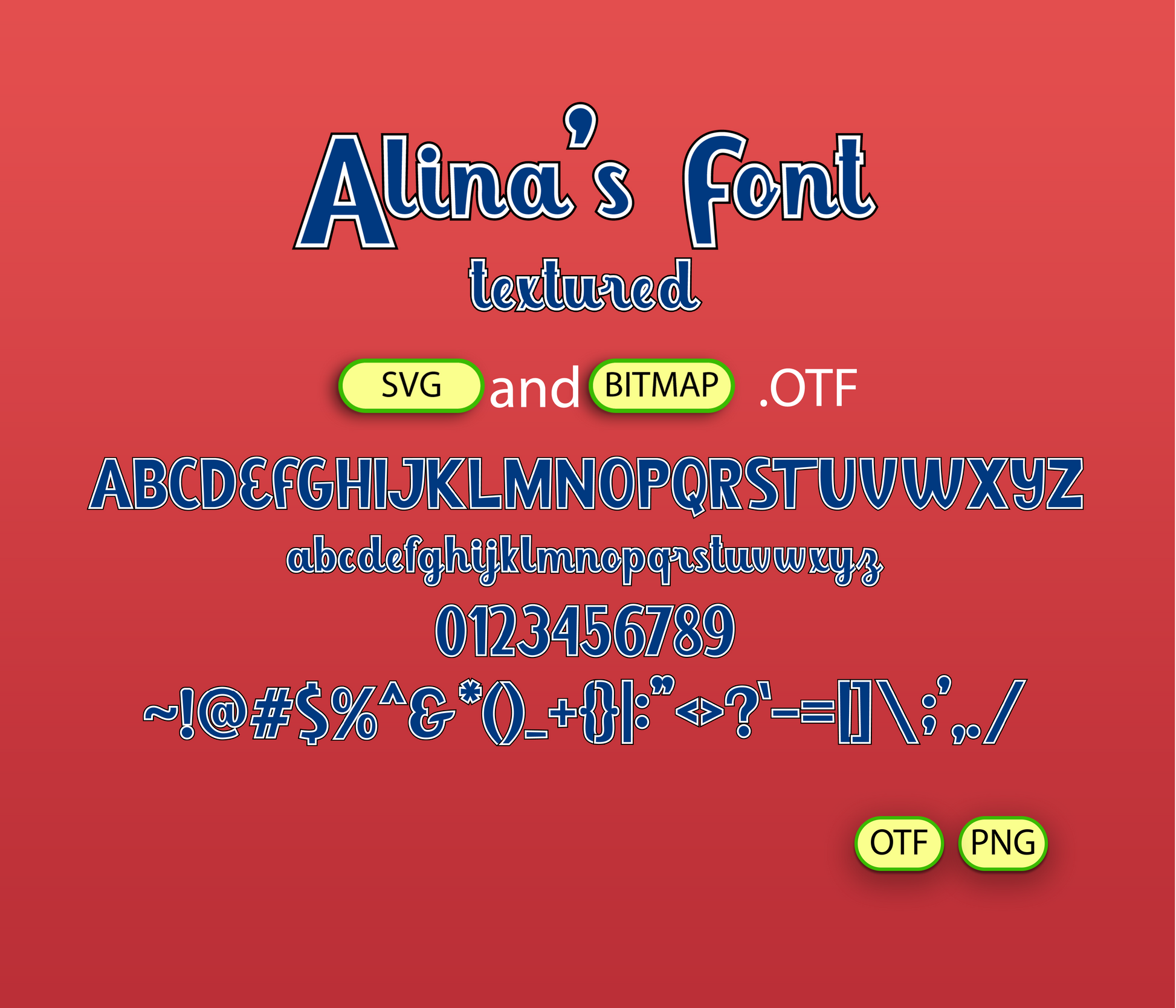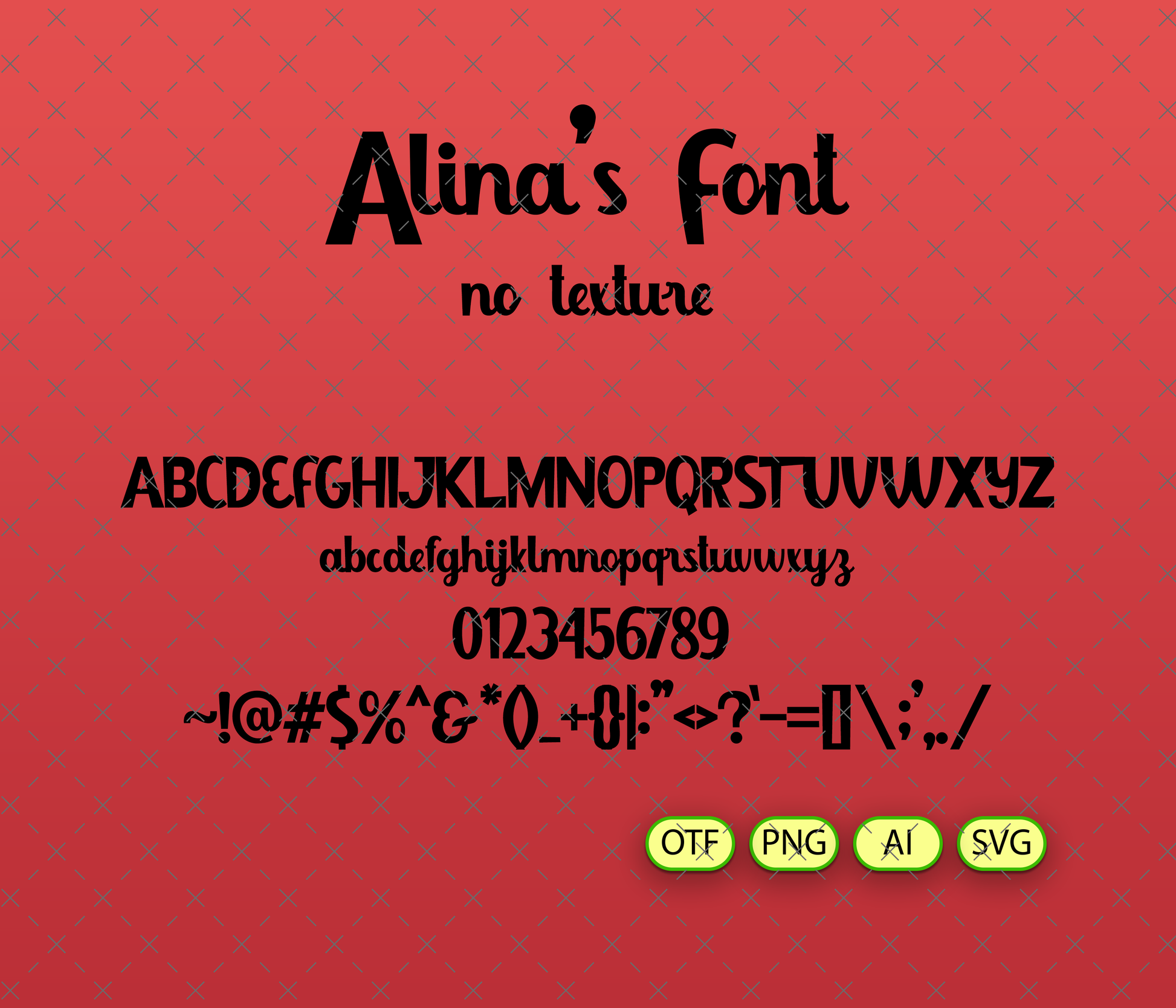
Basketball Squad Font Textured
Step into the competitive world of hoop dreams with our Basketball Squad Font Textured, capturing the essence of court rivalries and animated athletic showdowns. Perfect for sports enthusiasts, themed event planners, content creators, and creative professionals, this font brings the bold, energetic spirit of cartoon basketball stories to your projects. Create eye-catching invitations, merchandise, or digital content with the dynamic energy of team competition narratives.
Bold Typography for Sports Design & Athletic Projects
Our Basketball Squad Font Textured features dramatic, stylized letterforms with athletic textures reflecting the world of competitive players and hardwood court settings.
- Event Promotions: Create eye-catching invitations, posters, and banners for sports parties, fan conventions, and gatherings that capture the spirit of basketball entertainment
- Merchandise Design: Perfect for t-shirts, posters, stickers, and accessories that showcase the bold aesthetic of team sport themes
- Digital Media: Enhance websites, blogs, and social media with energetic headers and graphics that express the excitement of court competitions
- Creative Content: Add authentic flair to fan art, character designs, and creative projects inspired by animated sports tales
- Personal Projects: Bring competitive energy to scrapbooking, DIY crafts, and home decor inspired by the world of athletic championship characters
Our font pays tribute to the world of animated sports stories and basketball cinema, empowering your projects with its bold and energetic spirit. Whether crafting fan materials, designing themed products, or adding an athletic touch to personal projects, this font communicates the vibrant essence of team competition entertainment. Ready to inject court excitement into your creations? This font is your key to eye-catching, impactful design.